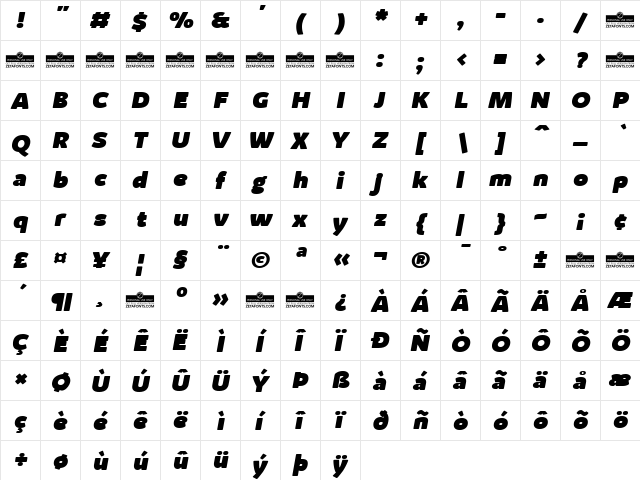
Kabrio Alternate Heavy Italic
| Foundry | studio kmzero |
| Designer | Corimo Lorenzo Pancini |
Design Context for Kabrio Alternate Typeface
Kabrio Alternate takes a measured approach to typography — its balanced proportions and neutral character make it a reliable workhorse for both digital and print work. The slanted form adds forward momentum and visual energy.